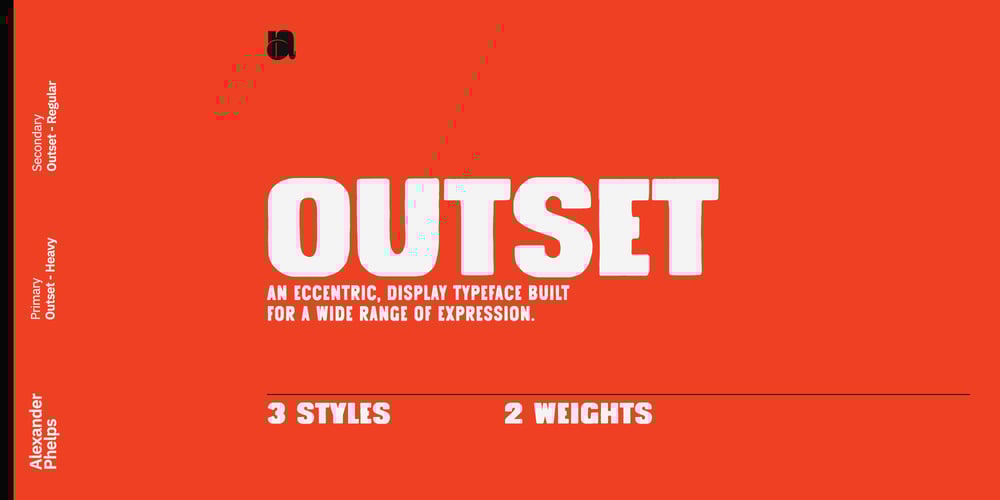
Outset
Outset font
Outset Font Family was designed by Alexander Phelps and published by Alexander Phelps. Outset contains 6 styles and family package options. Outset is a rough, display font family designed for a wide range of expression. It’s all-caps design gives additional variants to make sure that you can create with your desired intention. Each letterform for the Outset font family was drawn by hand to insure natural deviations for it’s roughness. These deviations help make this typeface feel authentic and relatable. The boldness of the letterforms makes this typeface an excellent choice for display type for posters, titles, merchandise, and specific marketing opportunities. Outset was originally drawn up for a range of t-shirt designs, and has now been extended into the full typeface you see now. It’s rough edges interact perfectly with textures and overlays. Outset’s multiple styles and variant letterforms allow for a very versatile range of outputs.